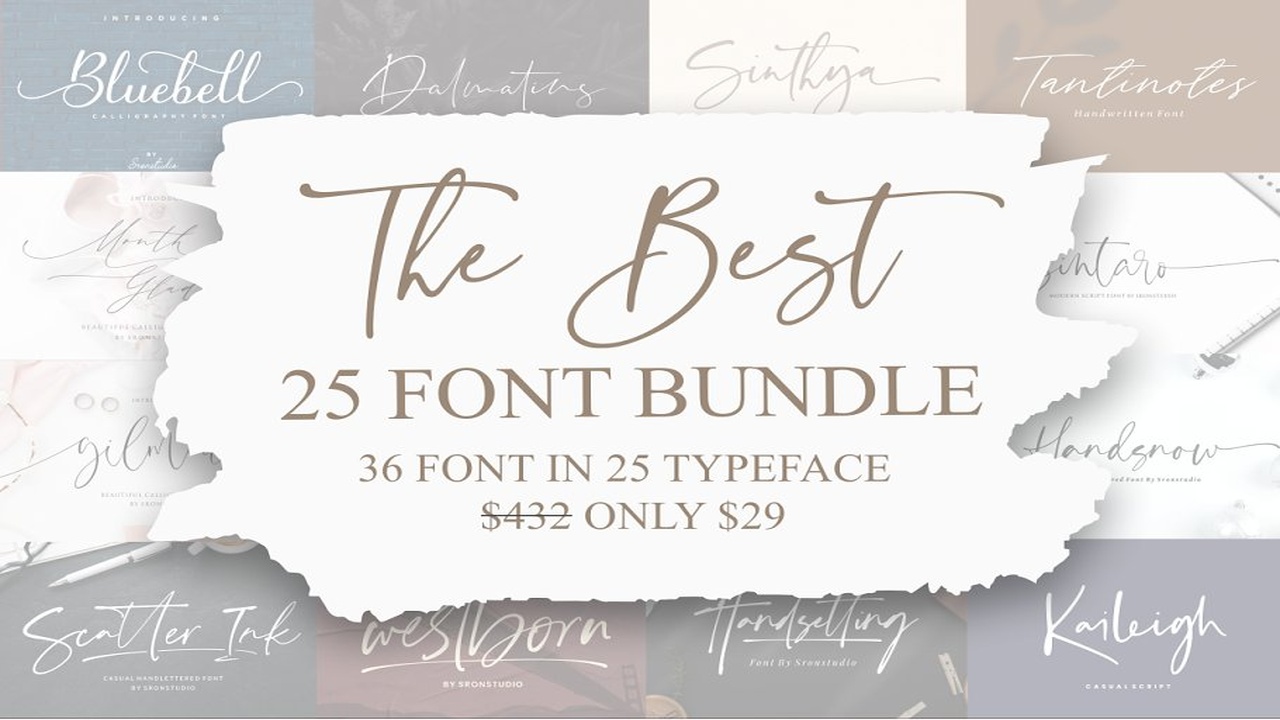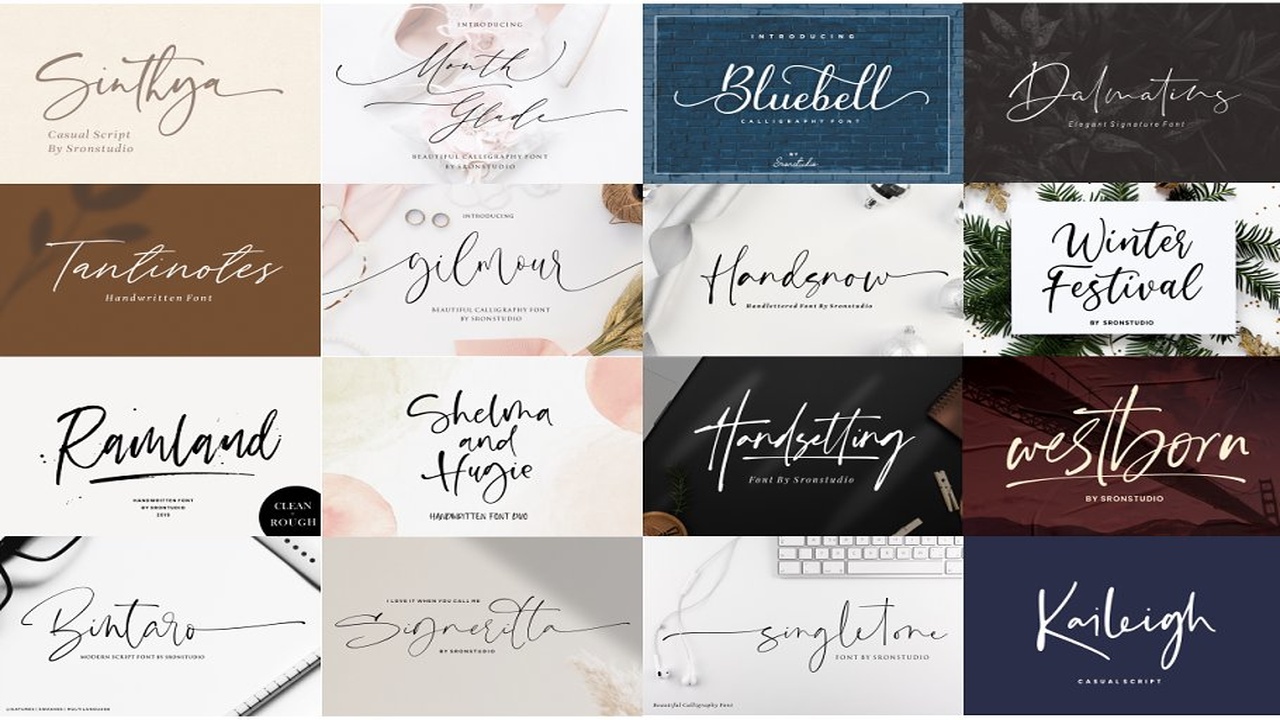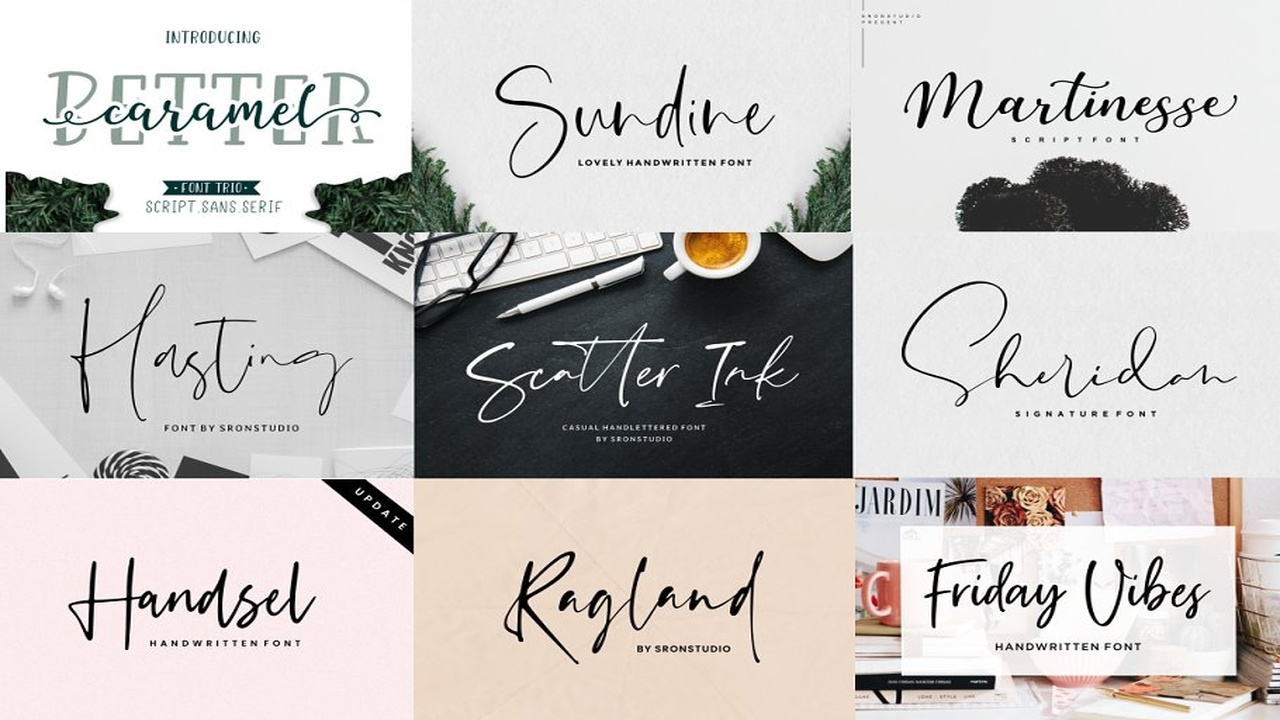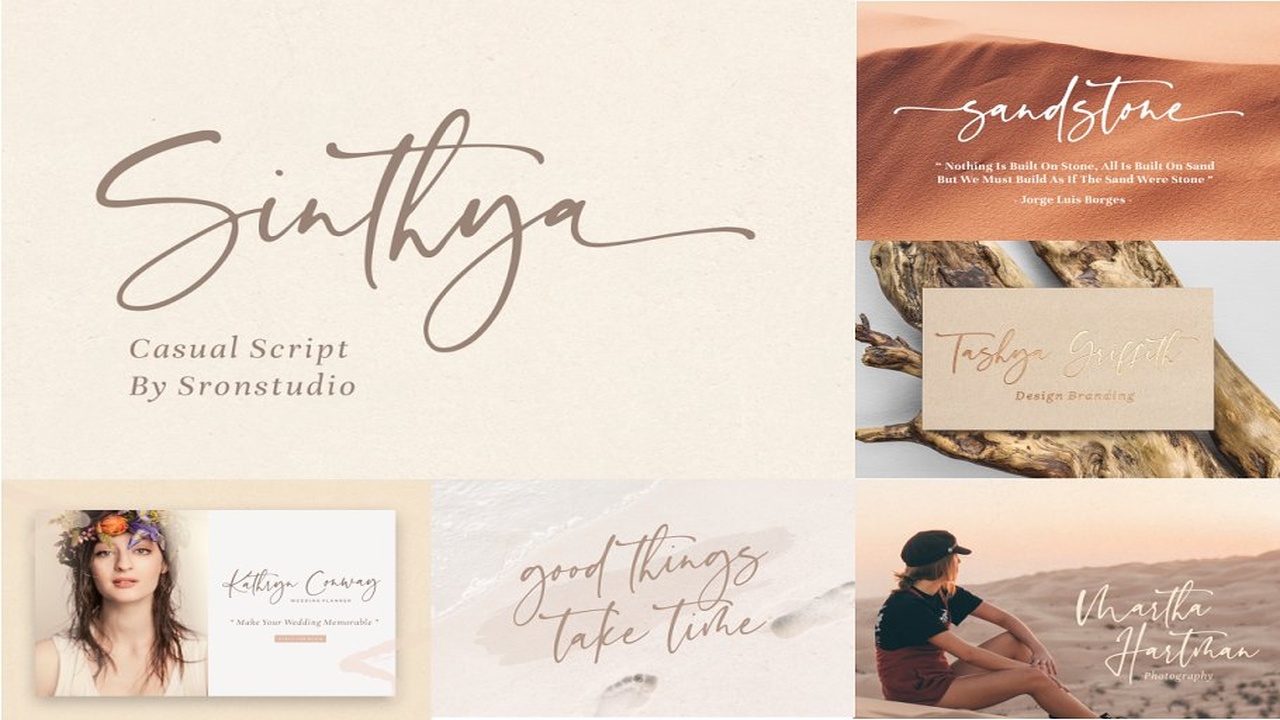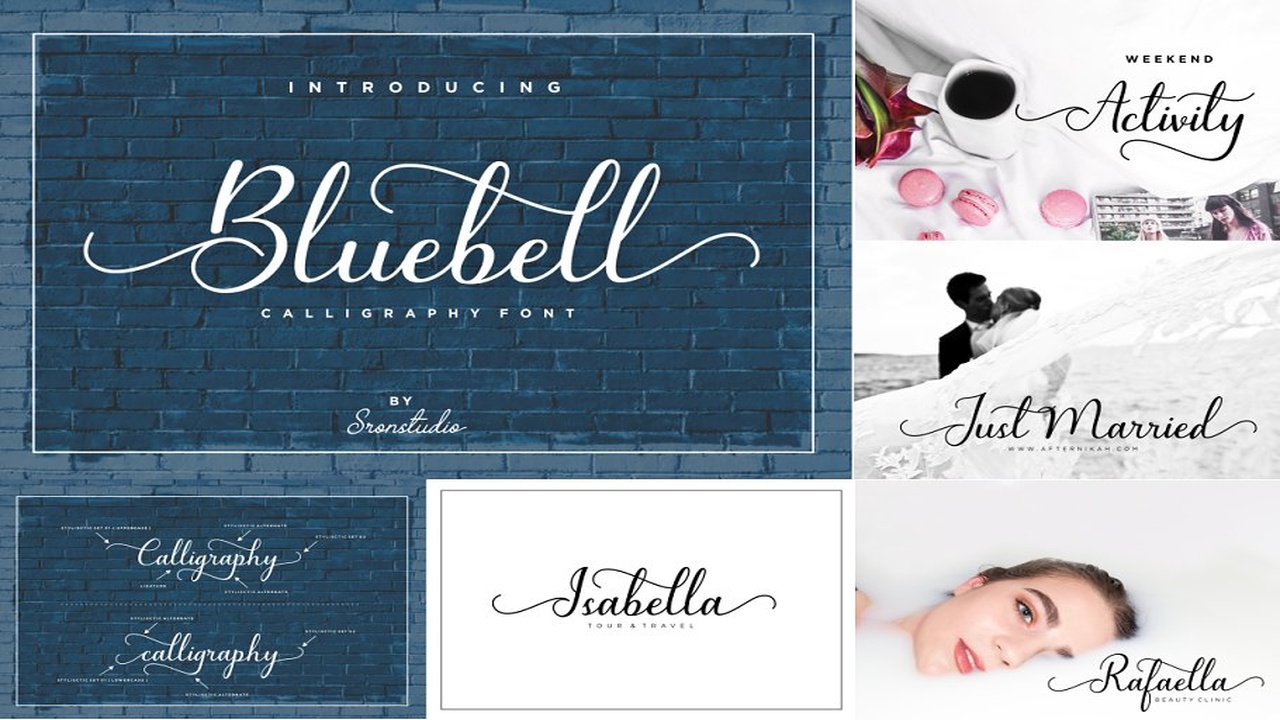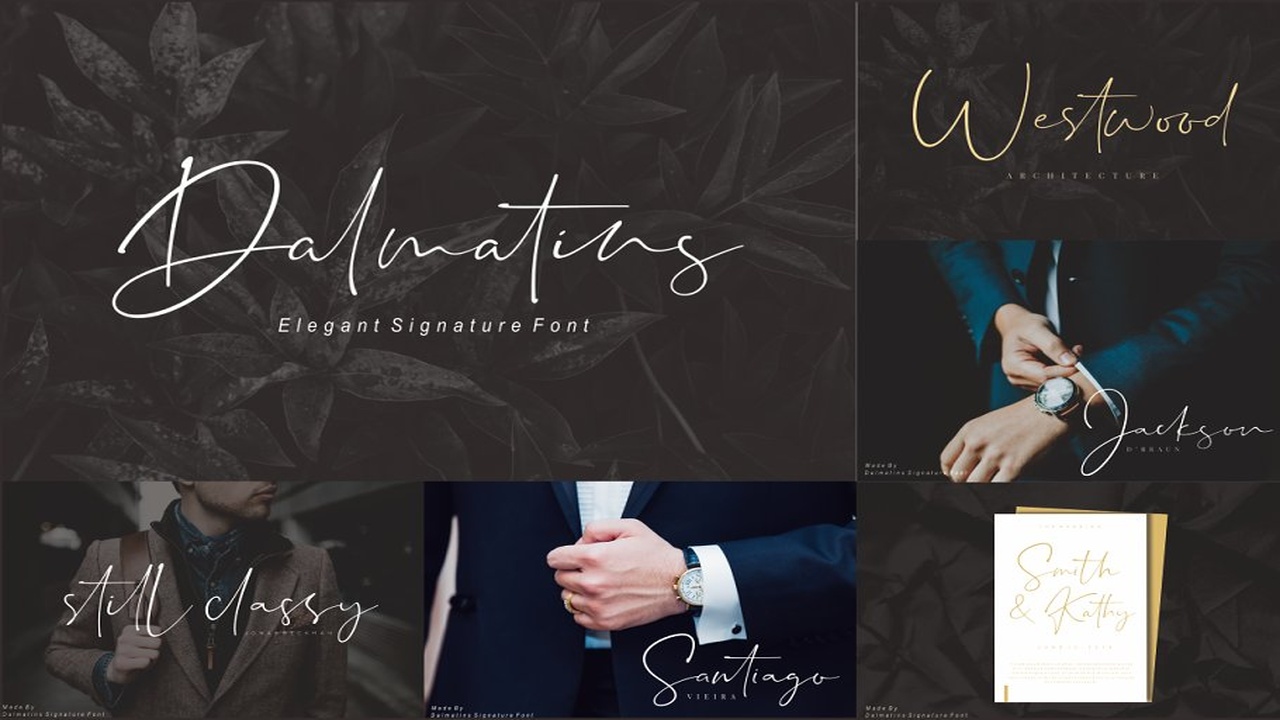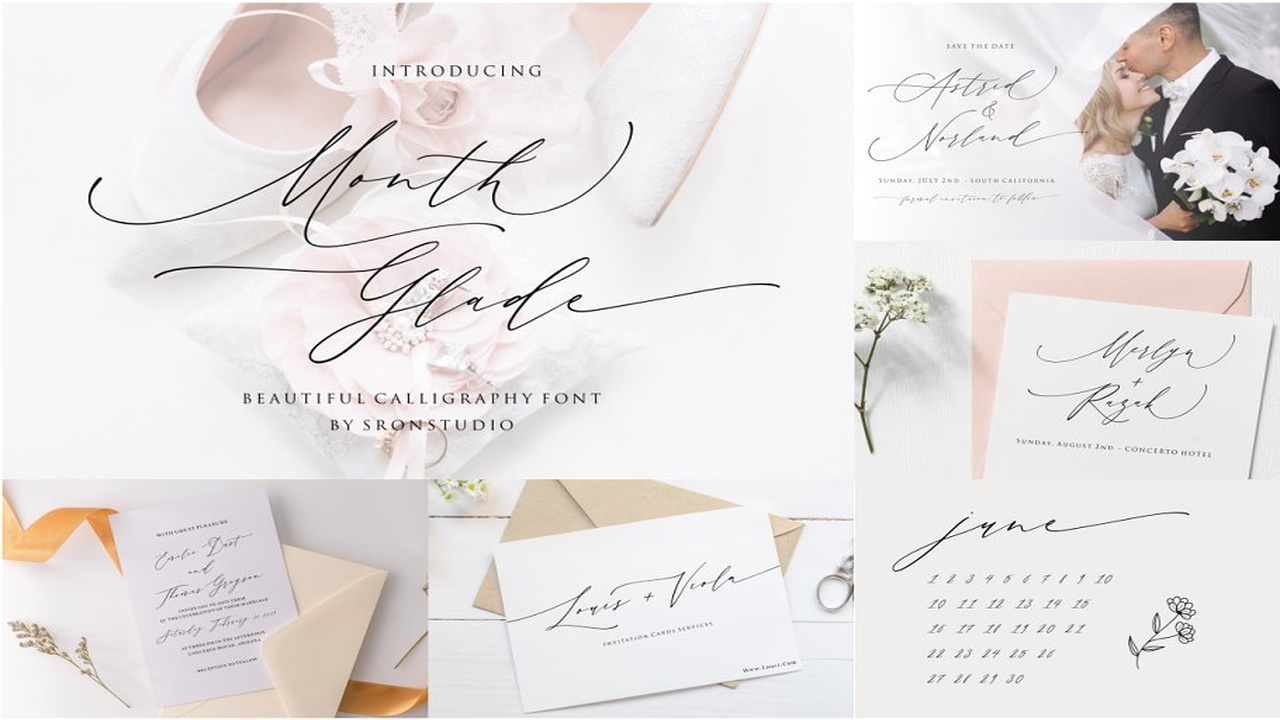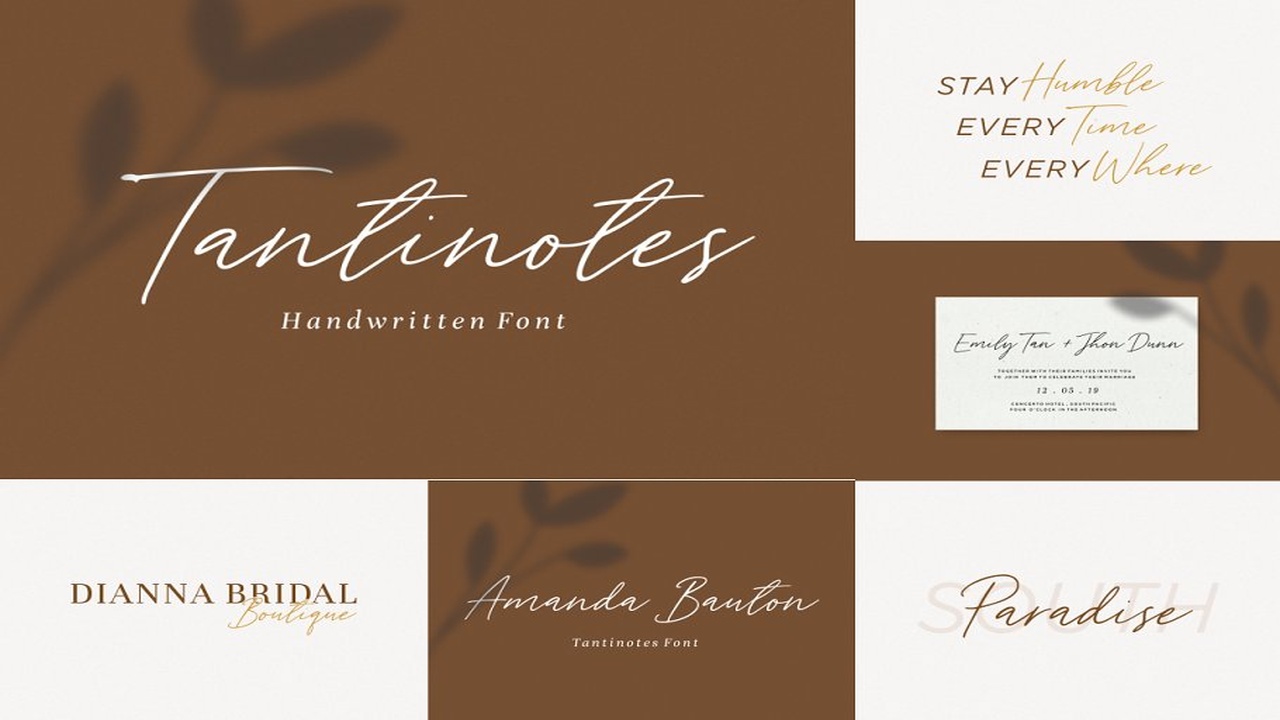
About the The Best Bundle Font
Hello!I’m happy to introduce the best 25 font bundle, This bundle contains my 25 best and popular font !!this bundle is collections of my calligraphy font, signature font, handwritten font, and crafty font, so you can use my font for any awesome project !!What do you get?36 beautiful fonts in 25 typefacesSome fonts have beautiful swashes alternatesAll fonts support multilingual languageAll fonts are PUA encoded and work fine in all programsTo access swashes or glyphs alternates, you can read this article : https://sronstudio